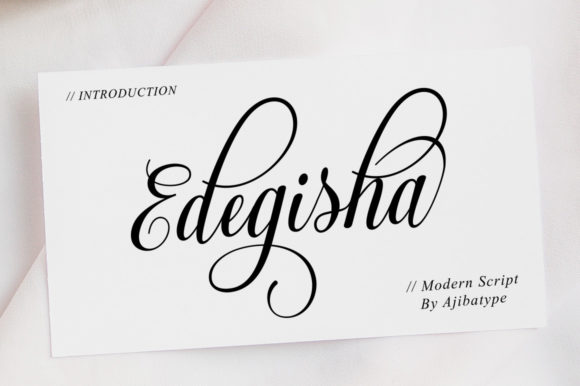
Edegisha Script Font: Elevate Your Designs with Elegance and Sophistication
In the world of typography, script fonts hold a special place for their ability to add a touch of elegance, sophistication, and personality to any design. Among the myriad of script fonts available, the Edegisha Script Font stands out for its refined and classy appearance, making it an excellent choice for a wide range of design projects. Whether you’re looking to create stunning logos, branding materials, invitations, stationery, wedding designs, or social media posts, Edegisha Script is a versatile and beautiful font that can elevate your designs to new heights.
Key Features of Edegisha Script Font
- Classy and Elegant Design: Edegisha Script boasts a modern yet timeless design that exudes elegance and sophistication. Its refined strokes and beautiful ligatures make it perfect for designs that require a touch of luxury and class.
- PUA Encoded: One of the standout features of Edegisha Script is that it is PUA (Private Use Area) encoded. This means that users can easily access all glyphs and swashes, providing a wide range of options for customizing and enhancing their designs.
- Versatility: The versatility of Edegisha Script is one of its most compelling attributes. It can be used across various platforms and for multiple purposes, including but not limited to logos, branding, invitations, stationery, wedding designs, and social media posts.
Exploring the Uses of Edegisha Script Font
Edegisha Script’s adaptability and aesthetic appeal make it suitable for a broad spectrum of design applications. Here are some of the key areas where this font truly shines:
- Logos and Branding: For businesses looking to establish a strong brand identity, Edegisha Script offers the perfect blend of sophistication and modernity. Its elegant appearance can help brands stand out and convey a sense of luxury and quality.
- Invitations and Stationery: Whether it’s a wedding invitation, a birthday party invite, or corporate stationery, Edegisha Script adds a touch of class and refinement. Its beautiful strokes and ligatures make any written communication look premium and engaging.
- Wedding Designs: Weddings are a celebration of love and elegance, and Edegisha Script is an excellent choice for all wedding-related designs, including invitations, menus, place cards, and more. It helps set the tone for a sophisticated and memorable event.
- Social Media Posts: In the digital age, social media is a crucial platform for communication and expression. Edegisha Script can help make your social media posts stand out with its elegant and modern aesthetic, capturing the attention of your audience and adding a professional touch to your content.
The Benefits of Using Edegisha Script Font
Choosing Edegisha Script for your design projects comes with numerous benefits that can enhance your creative output and workflow. Some of the key advantages include:
- Enhanced Aesthetic Appeal: With its elegant design and modern look, Edegisha Script can significantly enhance the aesthetic appeal of your designs, making them more engaging and visually appealing.
- Time Efficiency: Being PUA encoded, Edegisha Script allows designers to quickly access and use a wide range of glyphs and swashes, saving time and streamlining the design process.
- Versatility and Flexibility: The font’s versatility means you can use it across various projects and platforms, providing flexibility and consistency in your design work.
- Professionalism: Using a high-quality font like Edegisha Script can add a level of professionalism to your designs, reflecting positively on your brand or personal portfolio.
Tips for Getting the Most Out of Edegisha Script Font
To maximize the potential of Edegisha Script and create stunning designs, consider the following tips:
- Experiment with Swashes: Take advantage of the PUA encoding feature to explore different swashes and glyphs. This can add a unique touch to your designs and help you achieve the desired aesthetic.
- Pair it Wisely: Edegisha Script pairs well with a variety of fonts. Experiment with different pairings to find the perfect match for your design, balancing elegance with readability.
- Adjust Font Sizes: Play with font sizes to create visual hierarchy and emphasis in your designs. This can help draw attention to key messages and enhance the overall impact of your work.
- Use it Consistently: For branding and identity projects, use Edegisha Script consistently across all materials to establish a cohesive and recognizable visual identity.
Edegisha Script Font is a remarkable addition to any designer’s toolkit, offering a perfect blend of elegance, sophistication, and modernity. Its versatility, PUA encoding, and beautiful design make it an excellent choice for a wide range of projects, from logos and branding to invitations and social media posts. By incorporating Edegisha Script into your design workflow, you can elevate your creations, enhance your professional output, and make a lasting impression on your audience.